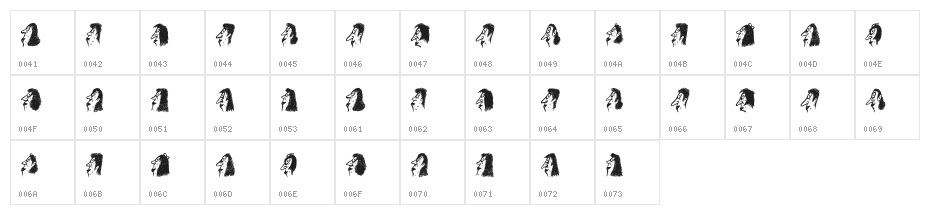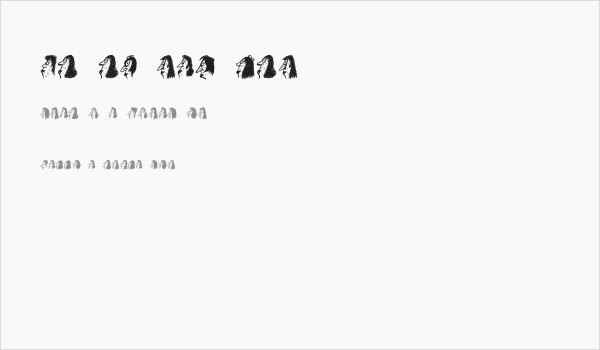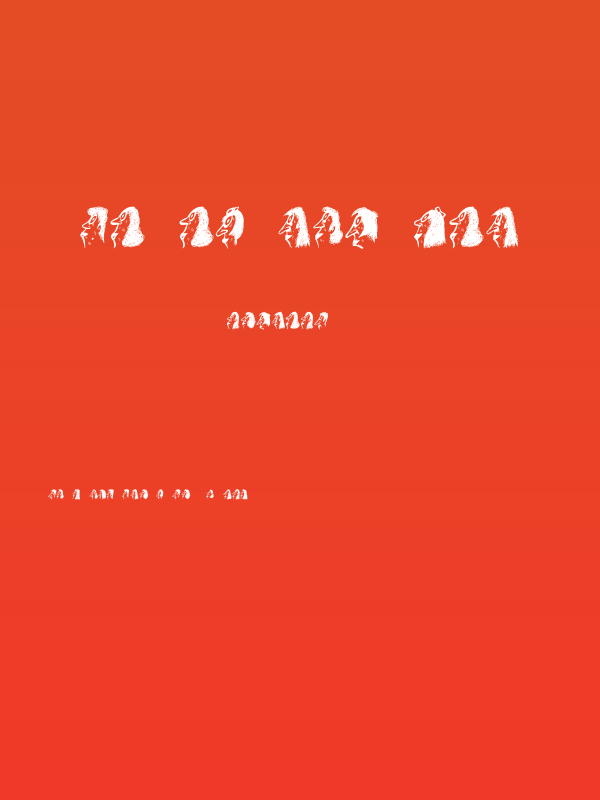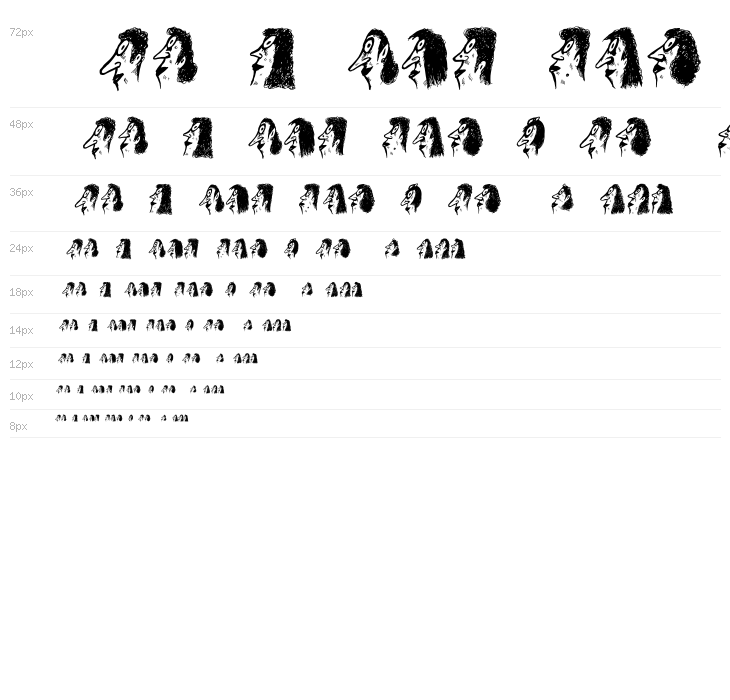
Bayan Regular Font
Bayan Regular Description
This is a highly decorative and artistic font featuring a series of hand-drawn, cartoonish character profiles. Each character is unique, with exaggerated facial features and expressions, giving the font a whimsical and playful appearance. The style is reminiscent of caricature art, with bold, uneven strokes and a sketch-like texture. The characters are not uniform in size or shape, adding to the font's quirky and informal charm. This font is not suitable for traditional text but serves as a creative and eye-catching design element.
| Use Case | Logos, Illustrations, Posters |
| Proposed Projects | Ideal for comic books, playful posters, children's book illustrations, or any project requiring a humorous and artistic touch. |